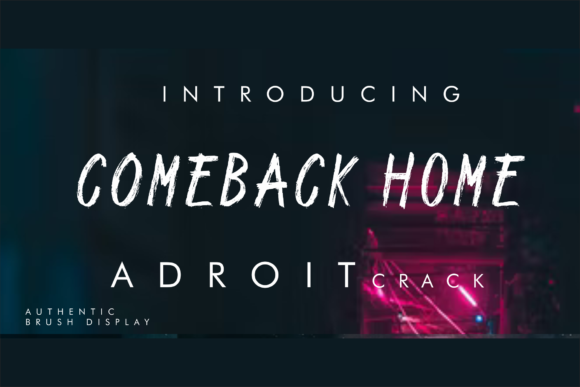
Prepare to be captivated by the enchanting Adroit Crack font, a display masterpiece meticulously crafted by bhubbiberrystudio. This font is a true gem, bursting with charm and personality that will add a touch of whimsy and uniqueness to all your design endeavors.
Step into a world where letters dance and characters come alive, where your designs will be transformed into captivating visual experiences. Adroit Crack's playful and slightly quirky nature will bring a smile to your face and leave an unforgettable impression on your audience.
This font is not just another addition to your collection; it's a gateway to a world of endless creative possibilities. With Adroit Crack as your artistic companion, you'll find yourself embarking on a journey of self-expression, where your ideas take flight and your designs reach new heights.
Unleash your imagination and let Adroit Crack take center stage in your digital displays, logos, branding, posters, social media graphics, and countless other projects. Its versatility knows no bounds, allowing you to create designs that resonate with your audience and leave a lasting impact.
Don't settle for ordinary fonts that blend into the background. Embrace the magic of Adroit Crack and watch as your designs come to life, captivating your audience with their charm and uniqueness. Let your creativity soar and experience the joy of creating truly remarkable visual masterpieces.